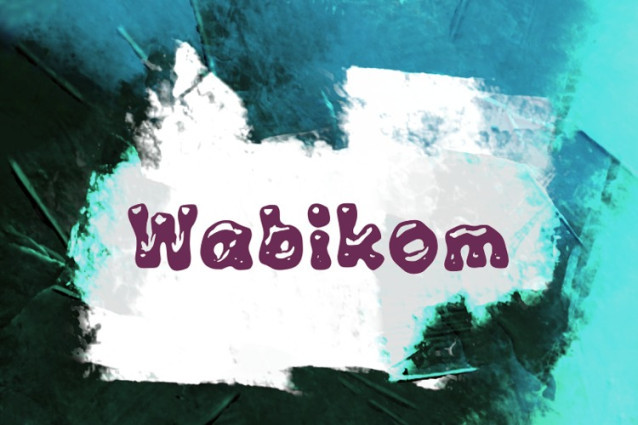
Wabikom Font
Wabikom Font, perfectly fit for branding, logo, wedding things, greeting cards, fashion, lookbook, marketing promotion, anytime you want to look fancy elegant but still casual.